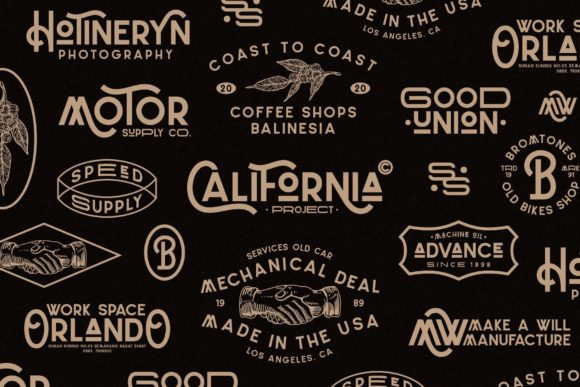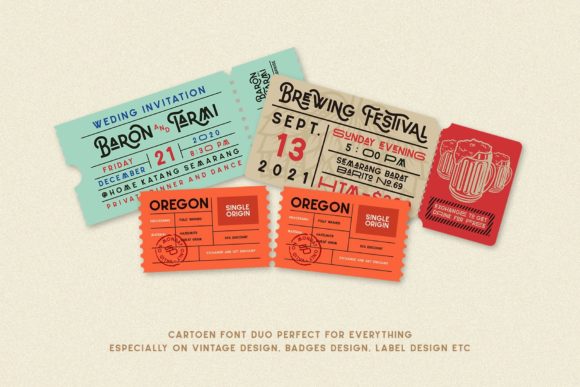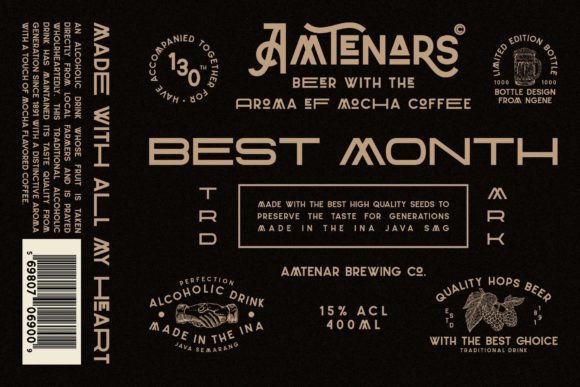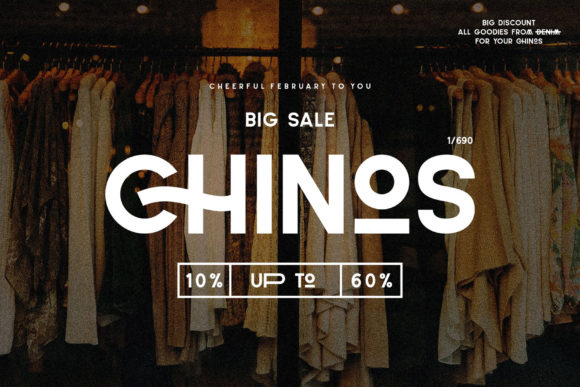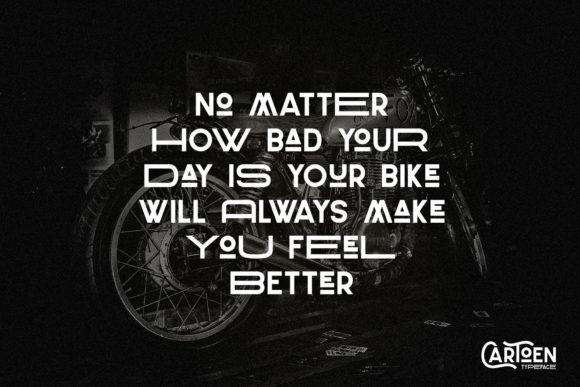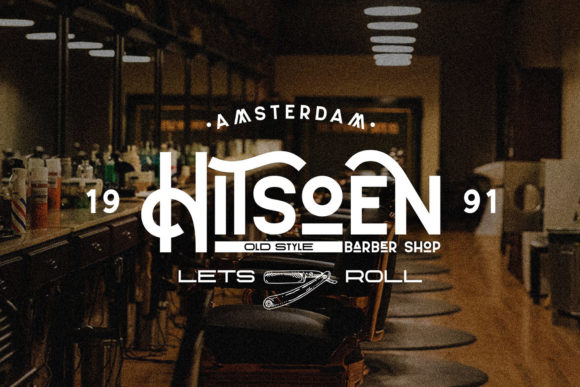
Cartoen Font Duo: Elevate Your Designs with a Vintage Twist
In the world of design, fonts play a crucial role in conveying the message and aesthetic of a project. For designers and crafters looking to add a touch of vintage charm to their work, the Cartoen Font Duo is an excellent choice. This font duo, which includes a regular style, is perfect for a wide range of applications, from logos and badges to clothing, posters, and more.
What is Cartoen Font Duo?
Cartoen is a carefully crafted font duo that embodies the essence of vintage design. Its unique characters and classic feel make it an ideal selection for designers who aim to create visually appealing and nostalgic designs. The font comes in a long version with a regular style, offering versatility and flexibility in various design projects.
Key Features of Cartoen Font Duo
- Vintage Appeal: Cartoen font boasts a distinctive vintage look that can instantly elevate the aesthetic of your designs.
- Versatility: Its regular style and long version make it suitable for a variety of projects, including logos, posters, clothing, and more.
- Ease of Use: Designed to be user-friendly, Cartoen font can be easily integrated into your design workflow.
- High-Quality: Crafted with attention to detail, this font duo ensures high-quality text rendering in your designs.
Perfect for Vintage Designs
Vintage designs require a special kind of font that can transport the viewer back in time. Cartoen font, with its classic and nostalgic feel, is perfectly suited for such designs. Whether you’re working on a retro-themed poster, a vintage-inspired logo, or an old-school style badge, Cartoen font can help you achieve the desired aesthetic.
Use Cases for Cartoen Font Duo
The versatility of Cartoen font makes it applicable to a wide range of design projects. Here are some of the best use cases:
- Logos: Create memorable and impactful logos with a vintage twist.
- Badges: Design eye-catching badges for events, products, or services with a classic feel.
- Clothing: Add a unique vintage touch to your clothing designs, making them stand out.
- Posters: Develop visually appealing posters for movies, events, or advertisements with a nostalgic vibe.
- Packaging: Enhance your product packaging with a vintage design element using Cartoen font.
Tips for Using Cartoen Font Duo Effectively
To make the most out of Cartoen font, consider the following tips:
- Pair with Modern Fonts: Combine Cartoen font with modern fonts to create a striking contrast.
- Experiment with Colors: Play around with different color schemes to find the perfect match for your vintage design.
- Adjust Size and Weight: Experiment with different sizes and weights of Cartoen font to add hierarchy and emphasis to your design.
Cartoen Font Duo is a valuable addition to any designer’s font collection, especially for those who specialize in vintage or retro-style designs. Its unique blend of classic charm and versatility makes it an excellent choice for a wide range of projects. By incorporating Cartoen font into your designs, you can add a touch of nostalgia and sophistication, setting your work apart from the rest.
Whether you’re a professional designer or a crafter looking to add a personal touch to your projects, Cartoen Font Duo is sure to inspire and enhance your creative endeavors.